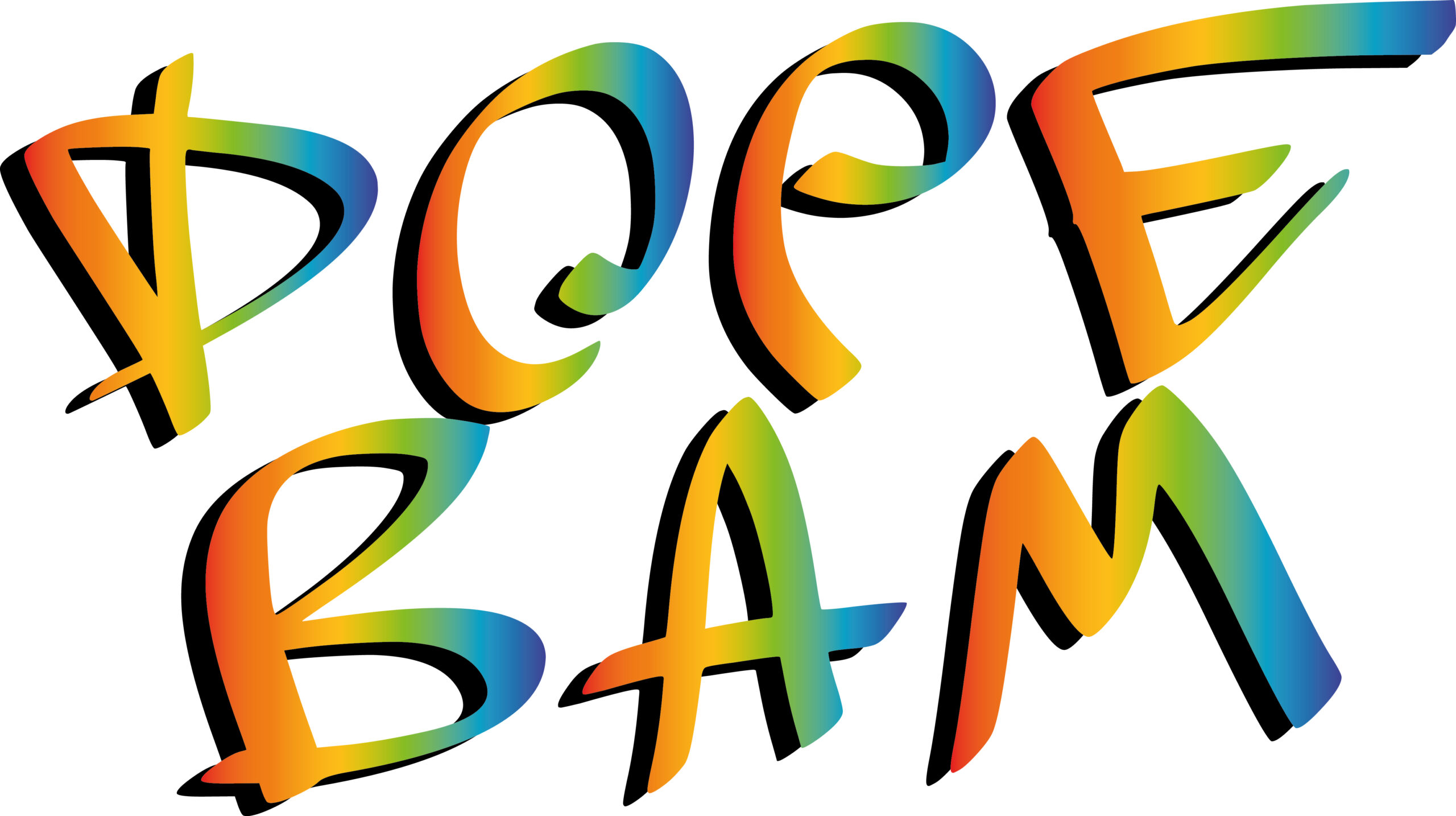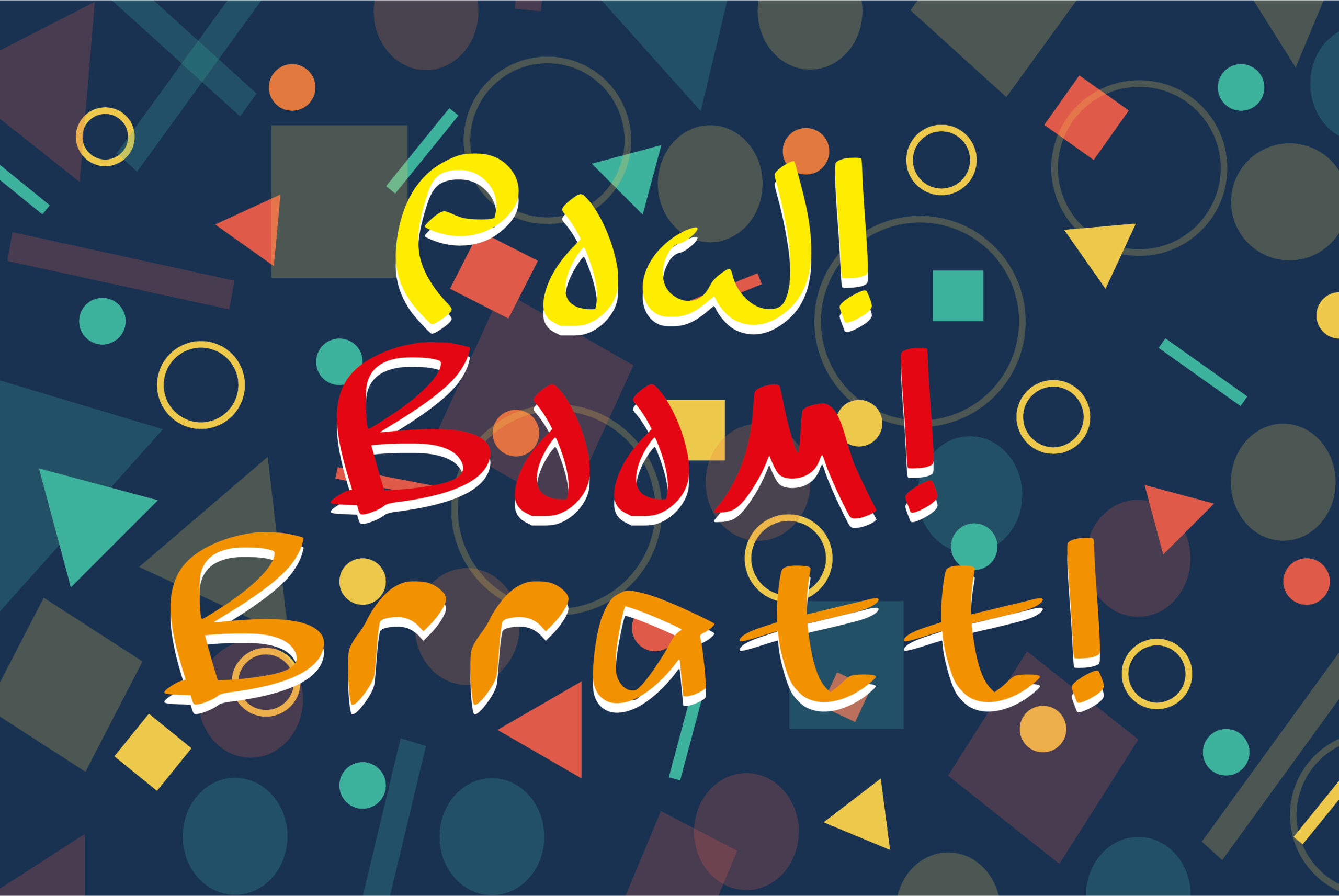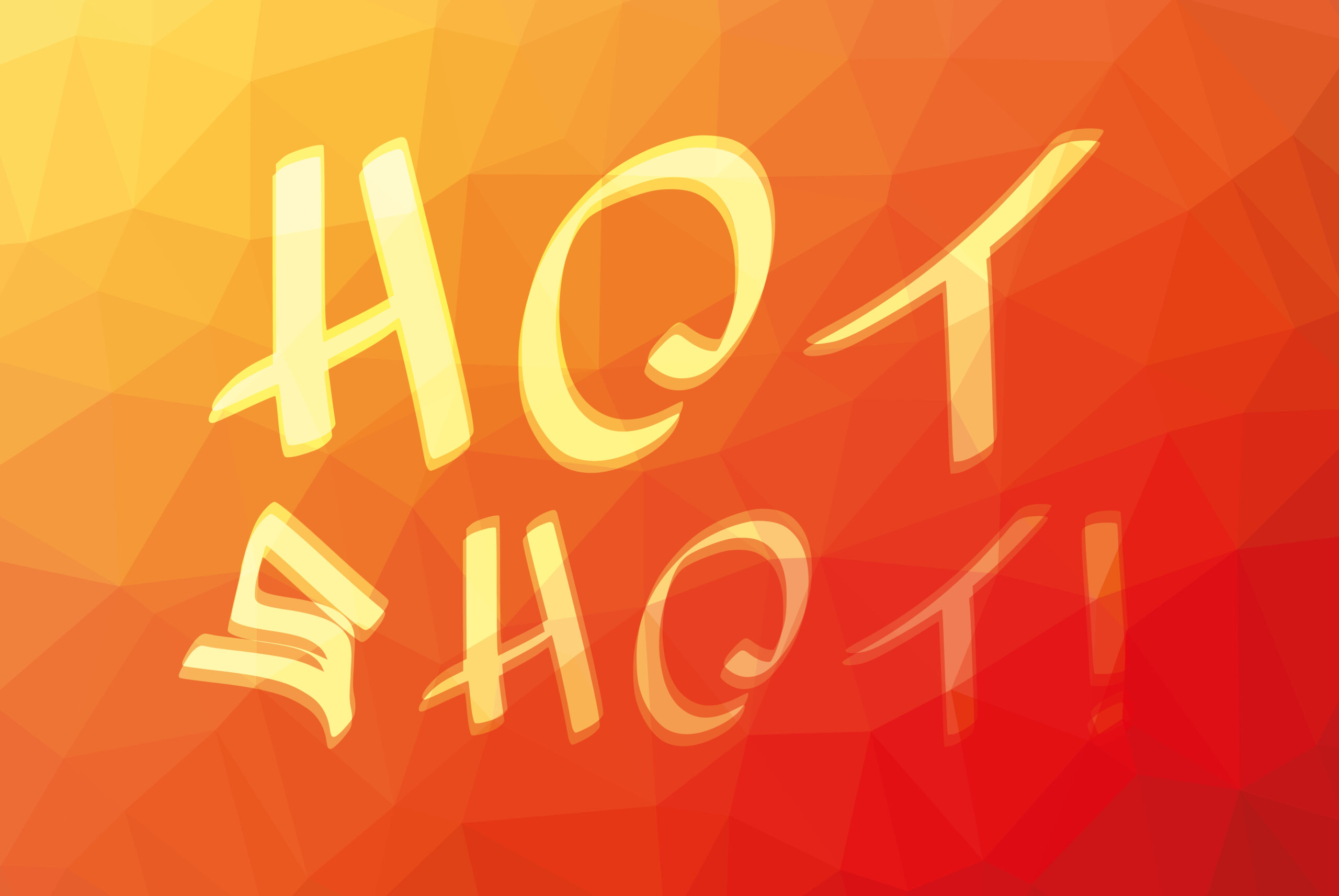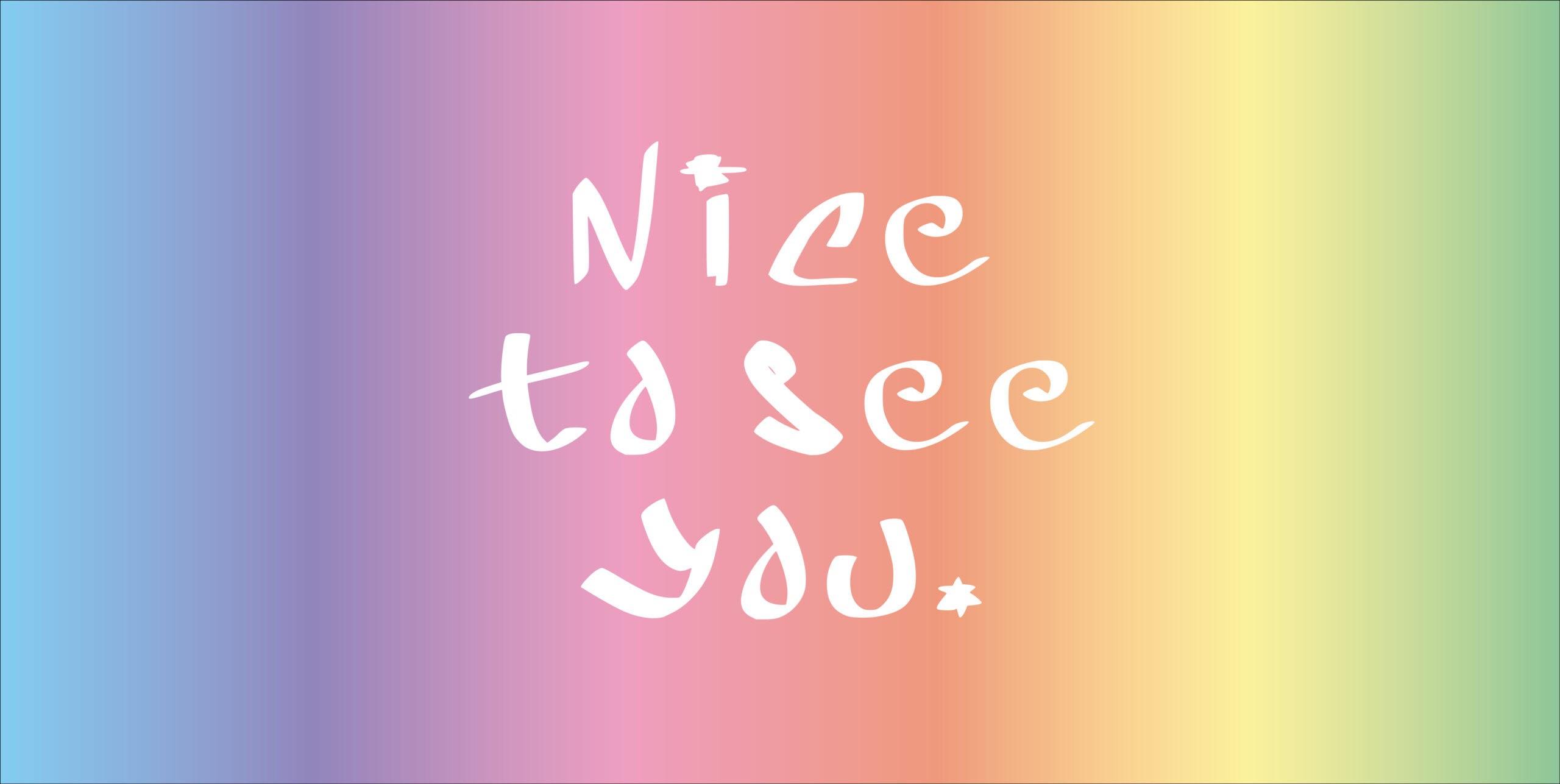
Dope Bam Font
About Dope Bam Font
“Yo yo yo, check it out , this right here is a thick nibbled marker pen type font inspired by graffiti and tagging, a font with street attitude. ‘Nuff said… Peace!”